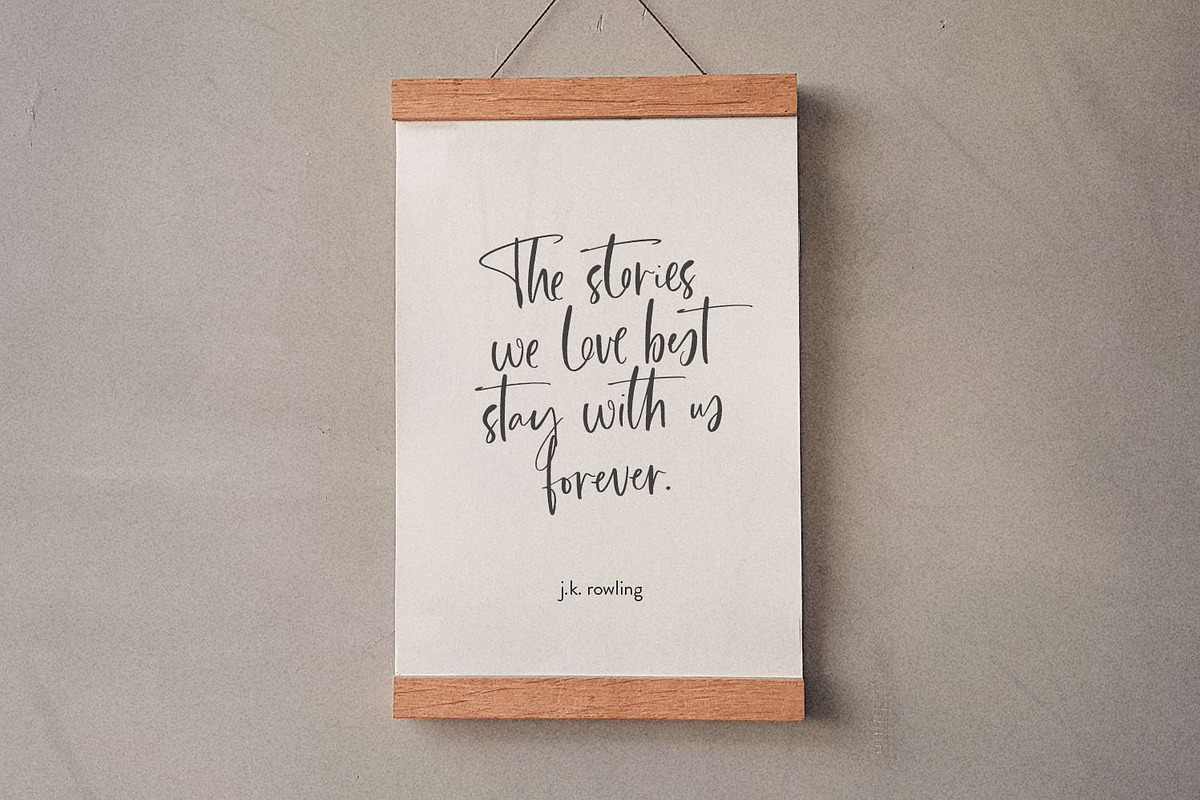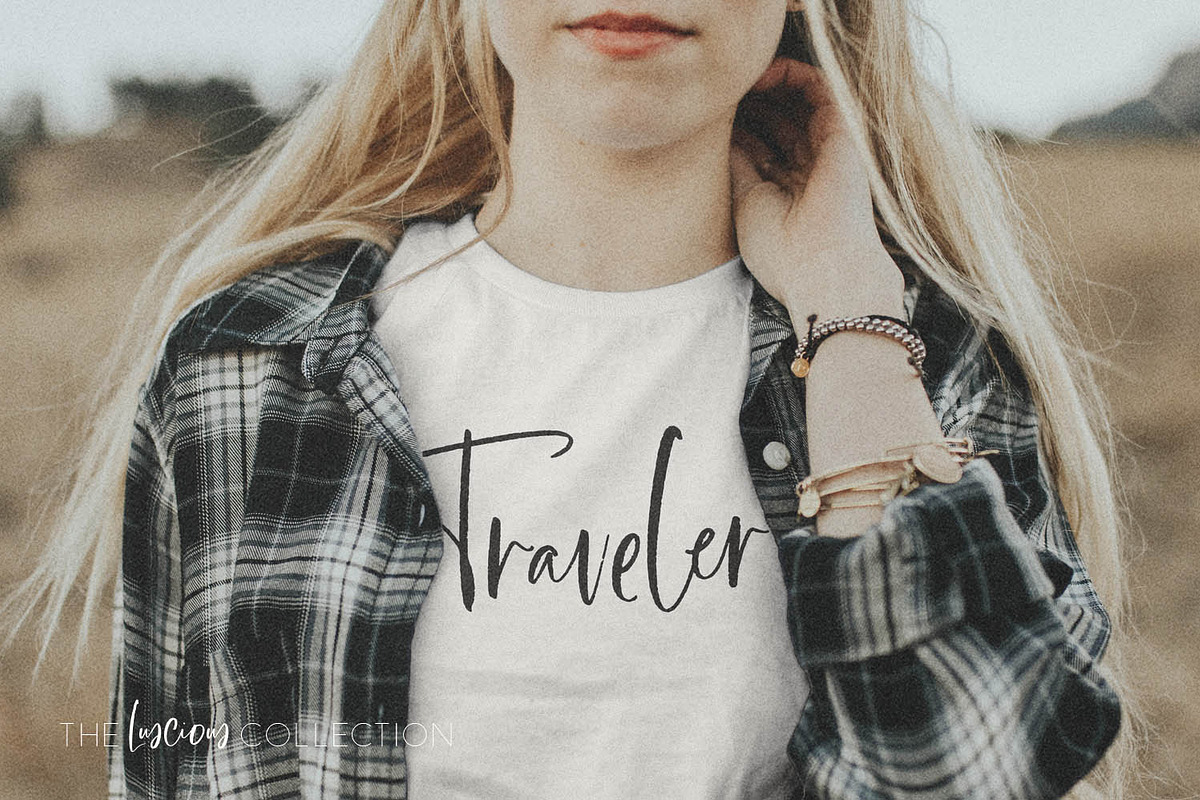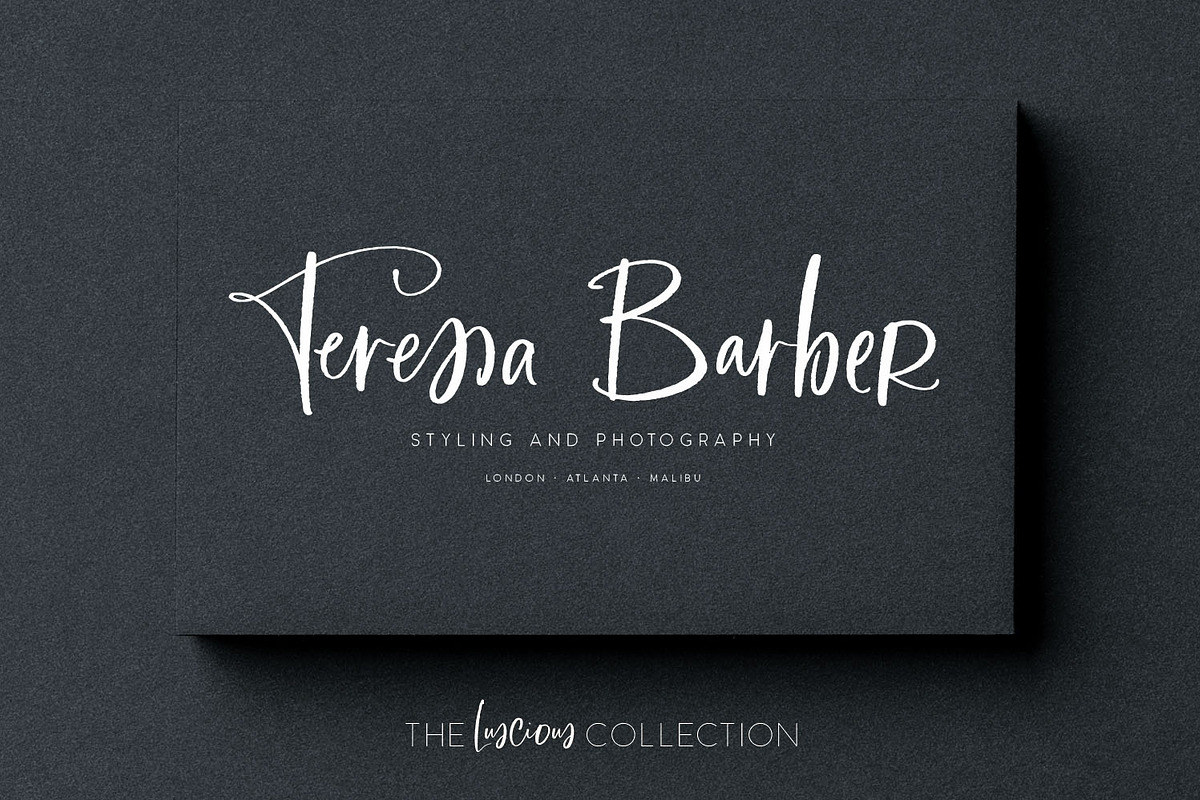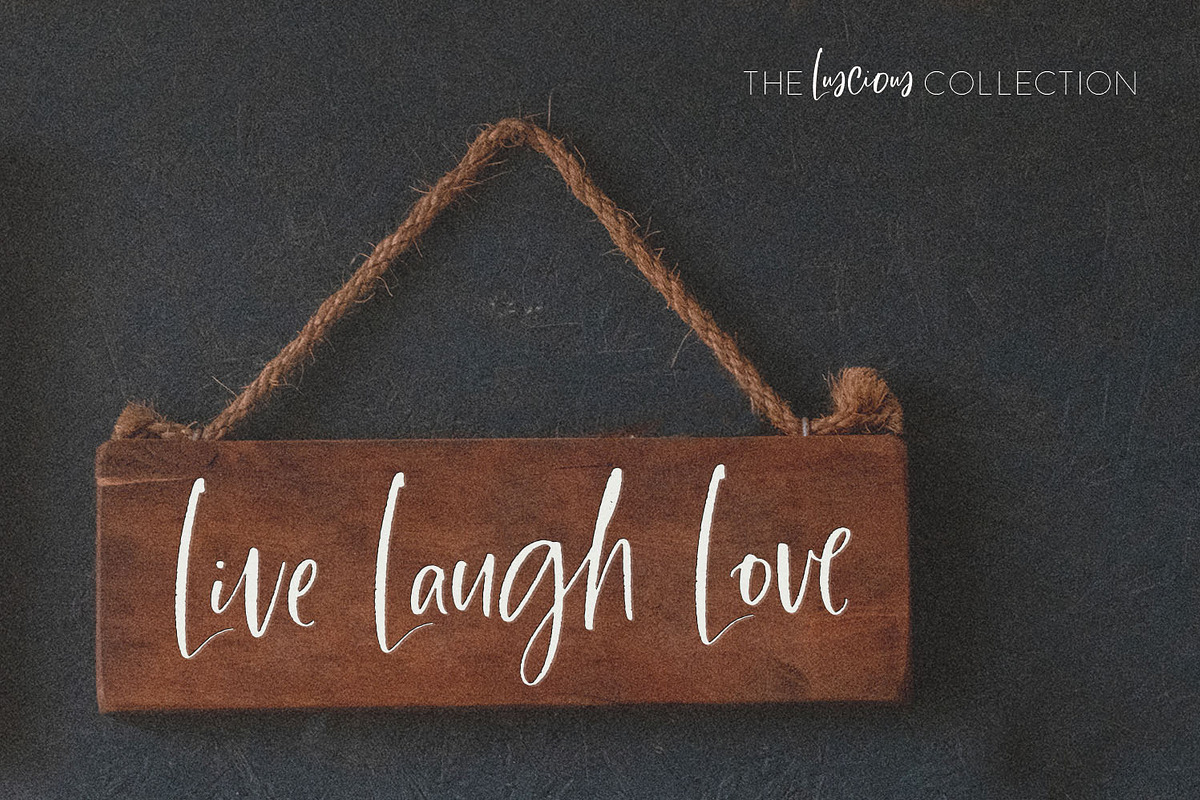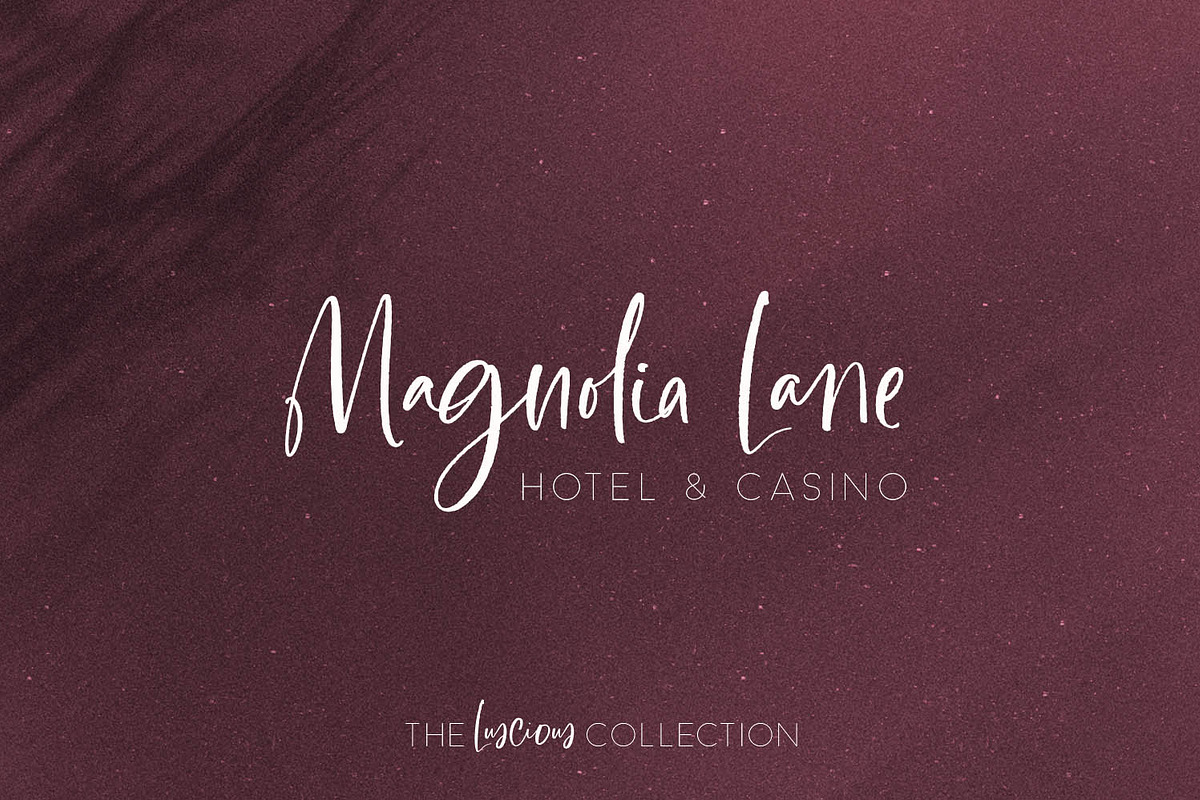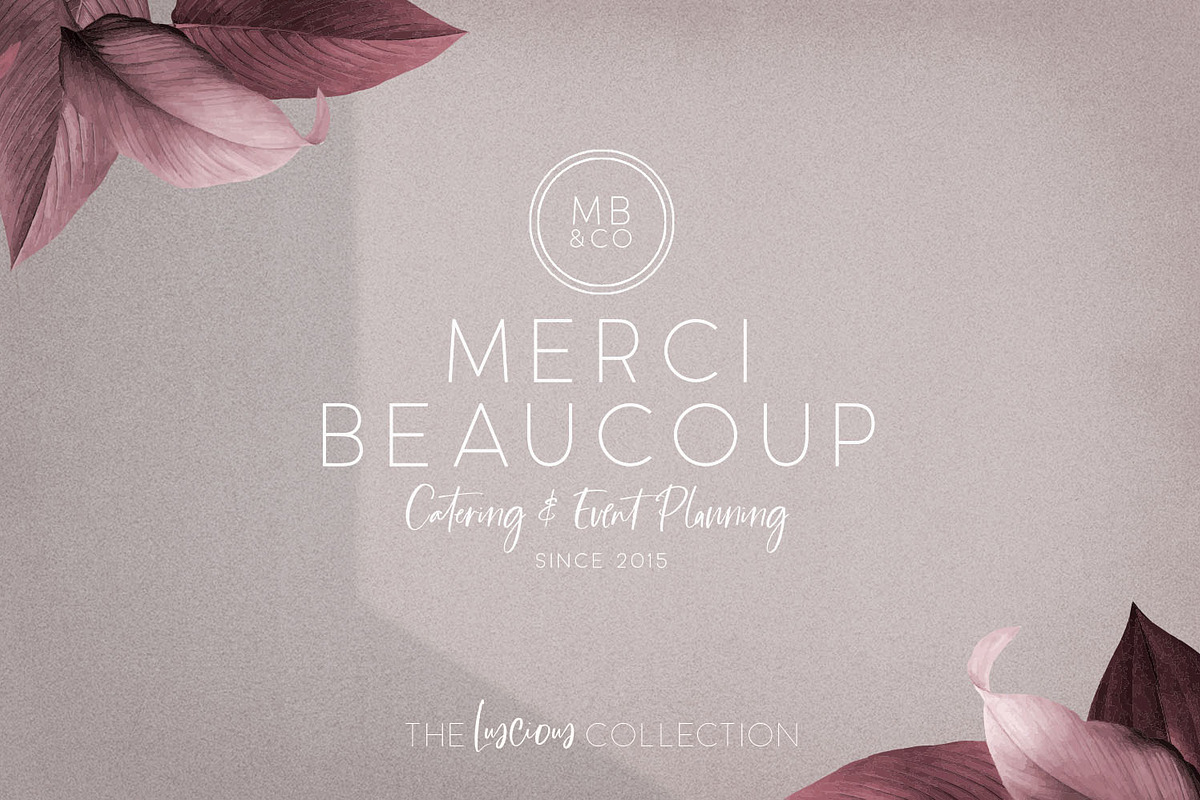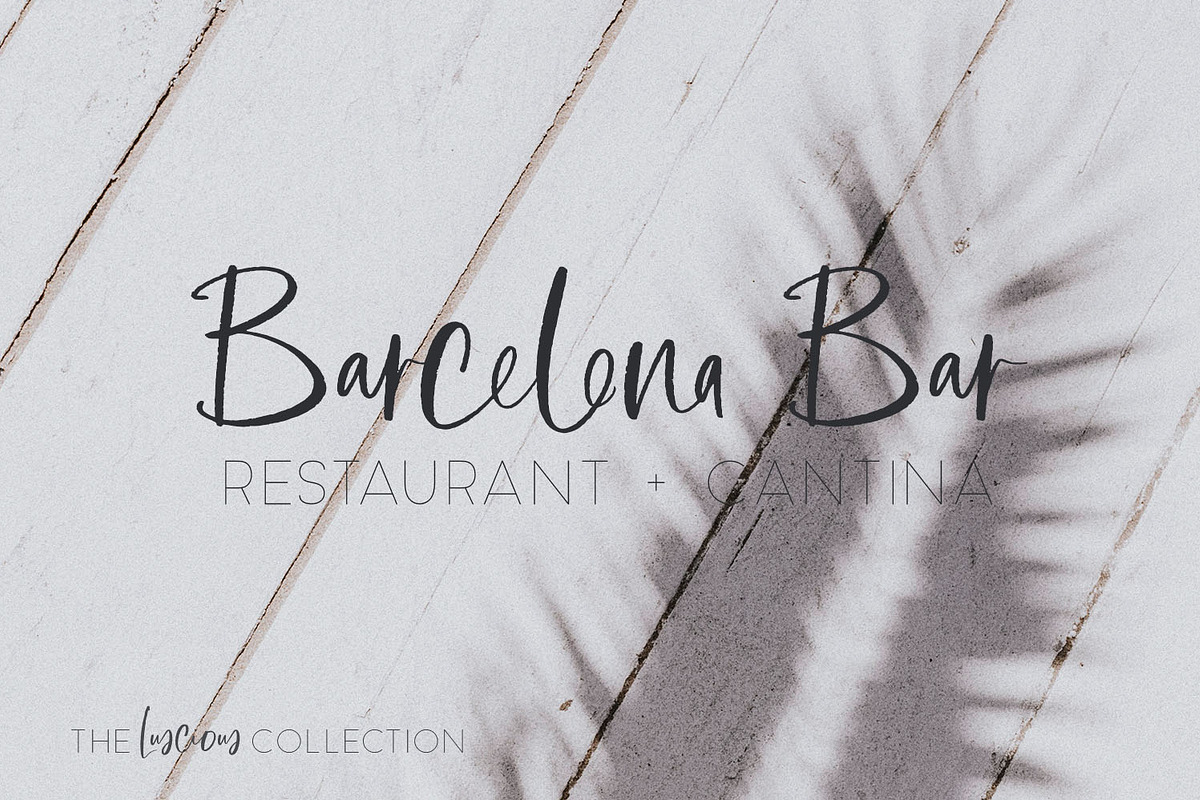
The Luscious Font Collection
Let's get Luscious! Add a dash of decadence to your projects with The Luscious Collection, a sultry, sophisticated script and a modern, refined sans serif in 3 weights.
Perfect for branding, bridal, social media, packaging, greeting cards, totes, apparel, mugs and more! Use the previews as your inspiration. There's a lot you can do! Can't wait to see what you make!
Made to mimic natural handwriting strokes and imperfect edges, Luscious Script includes 86 alternates and ligatures for an authentic handwriting feel.